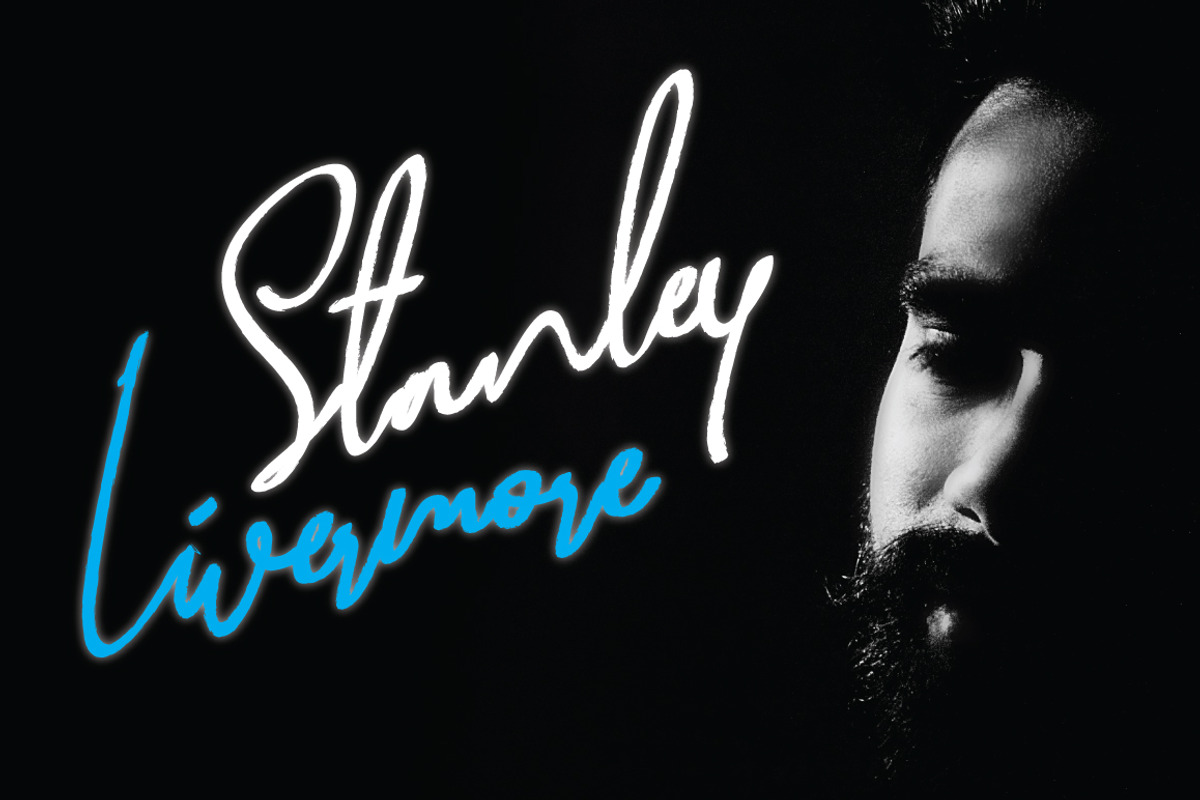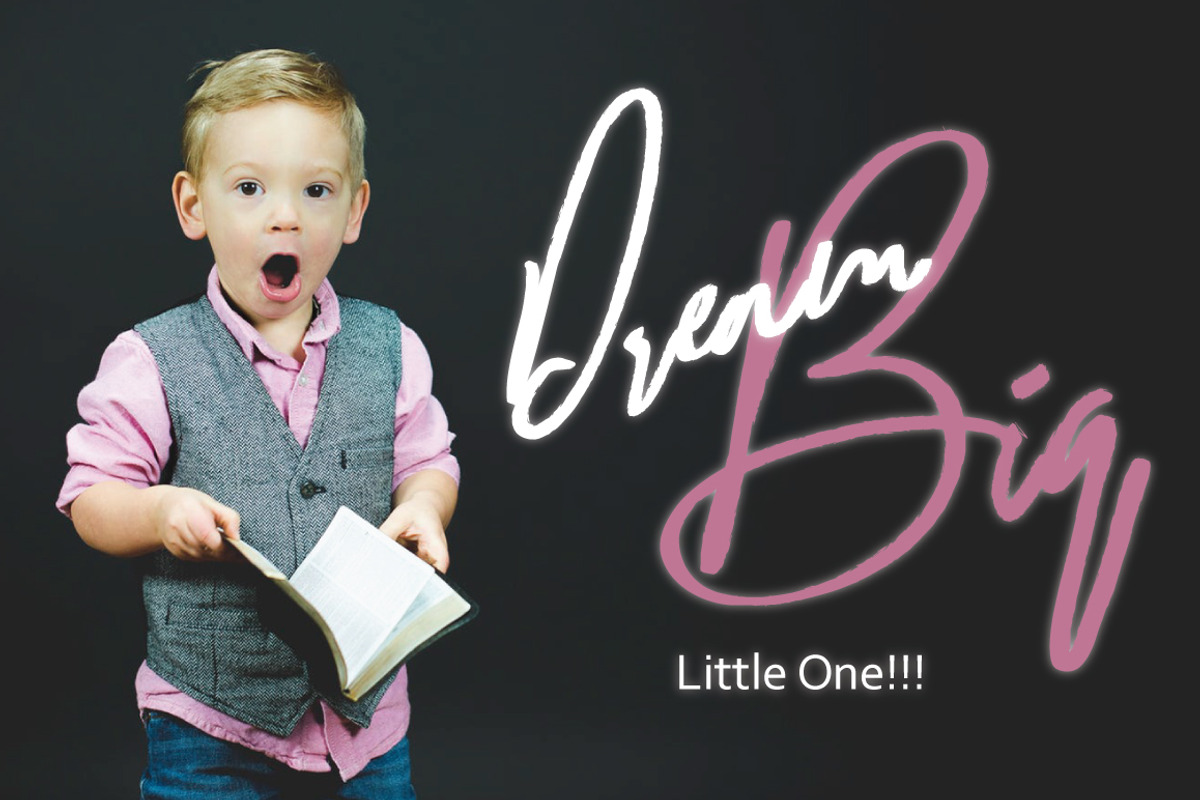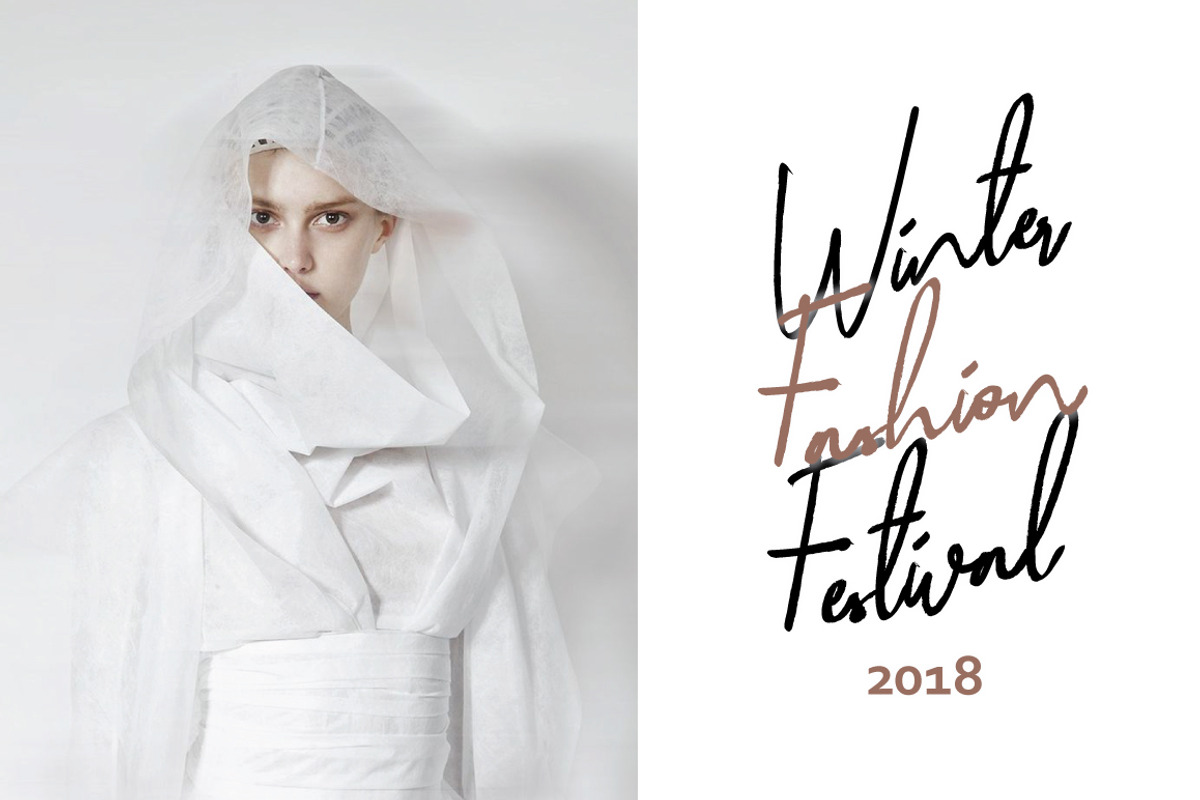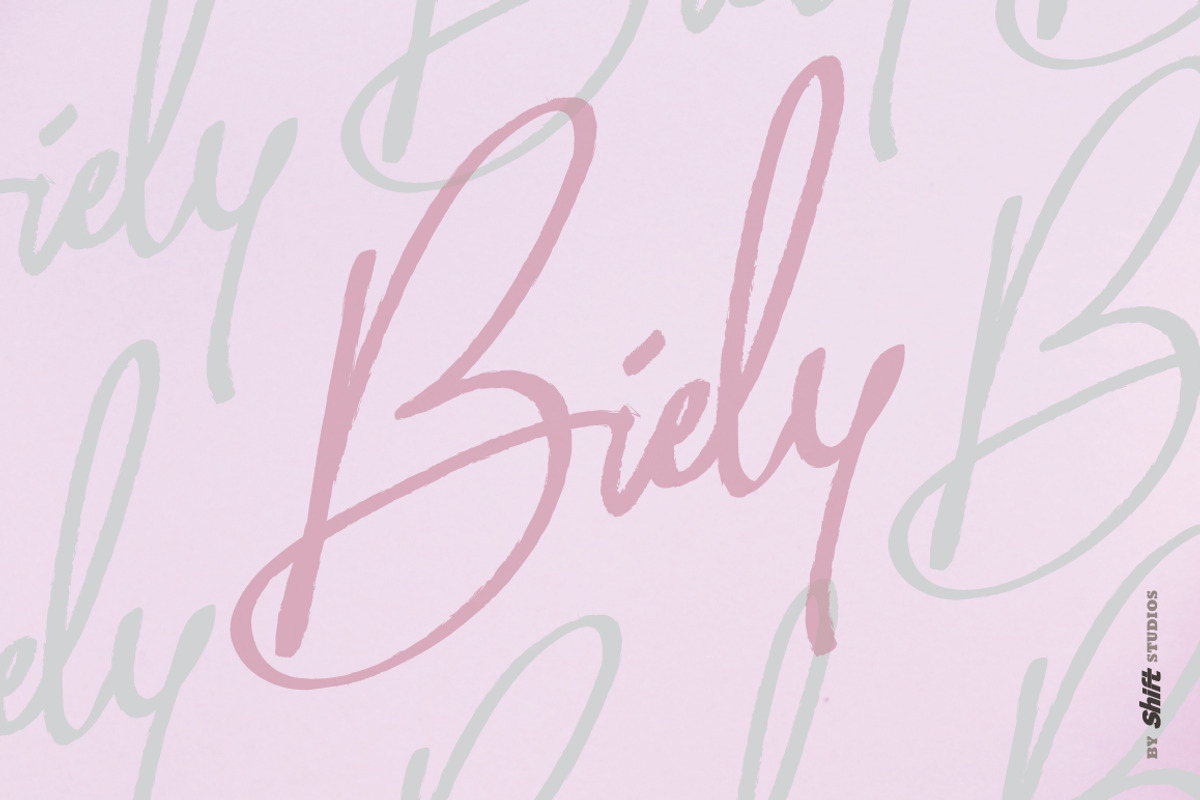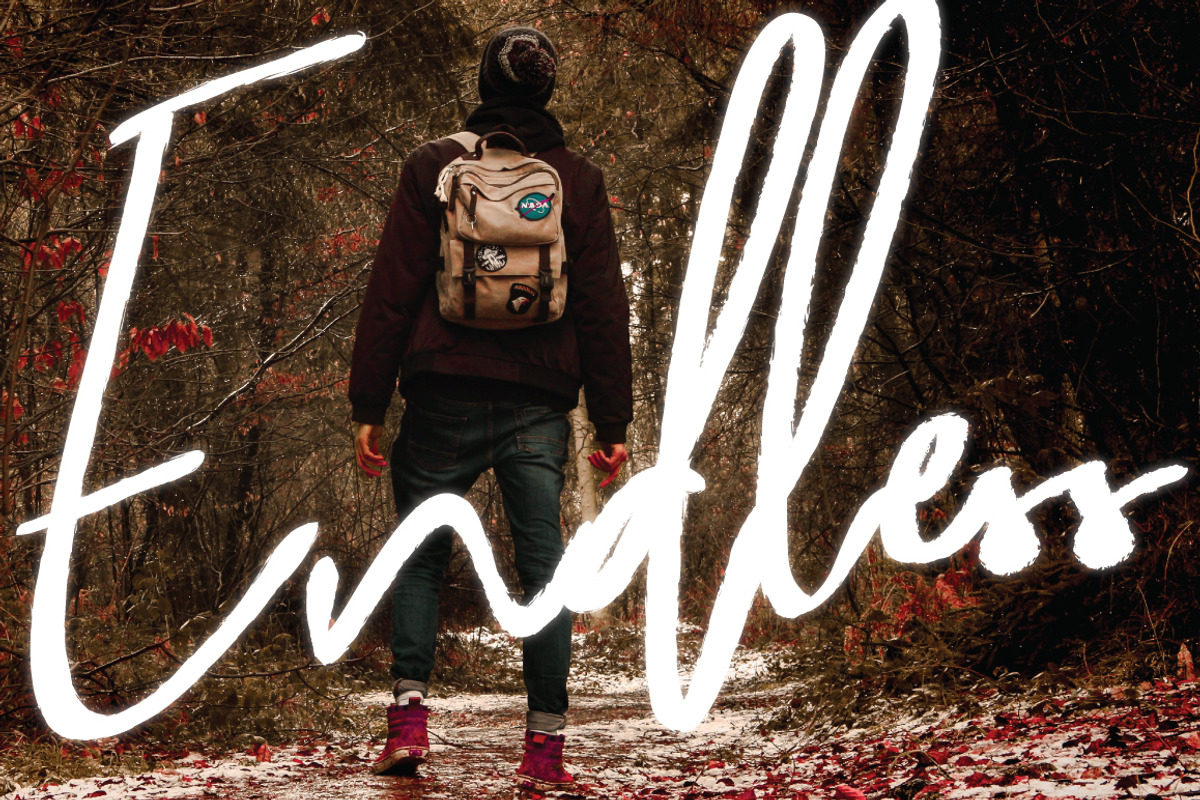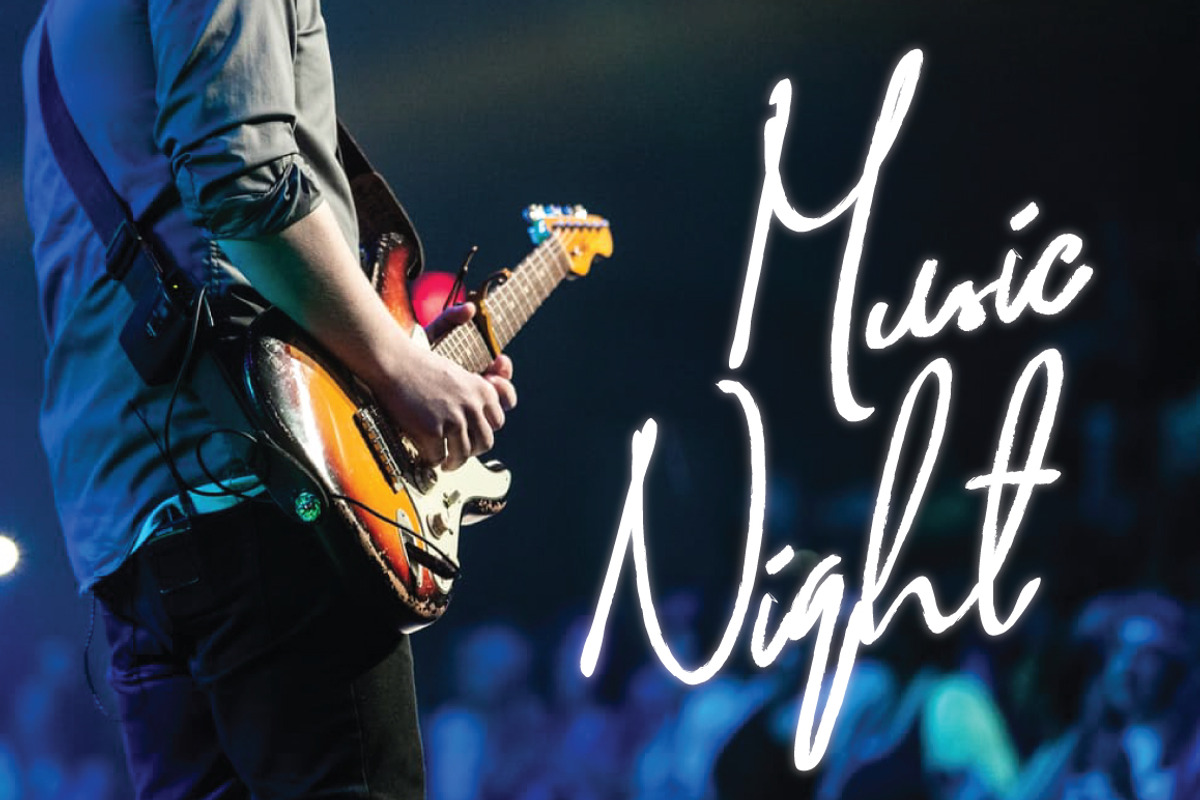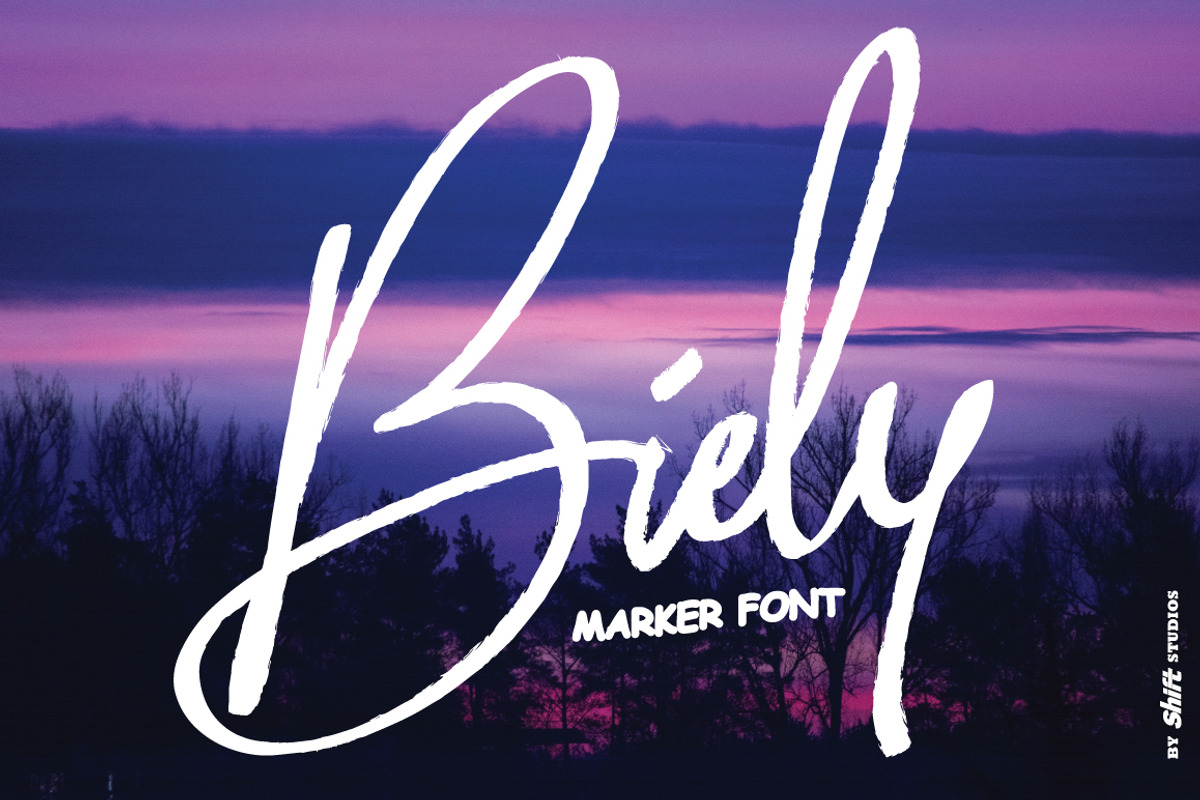
Biely Marker Font
Biely font is a marker script style and fast style handwriting font. This script font specifically developed for real handwriting looks and perfect also for A-Z signature in your personal branding.
Perfect for displays, headers, invitations, blogs, poster and so much more, Biely will become a playful staple in your font collection!